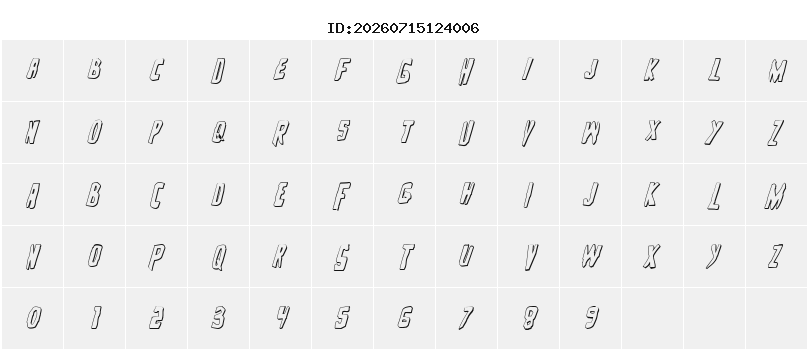
Zakenstein 3D Italic Preview
• Font Name: Zakenstein 3D Italic
• Full Font Name: Zakenstein 3D Italic
About Zakenstein 3D Italic.ttf
Zakenstein 3D Italic.ttf is a modern, elegant sans-serif font designed for ultimate readability and visual harmony. Perfect for branding, headlines, web design, and print materials.